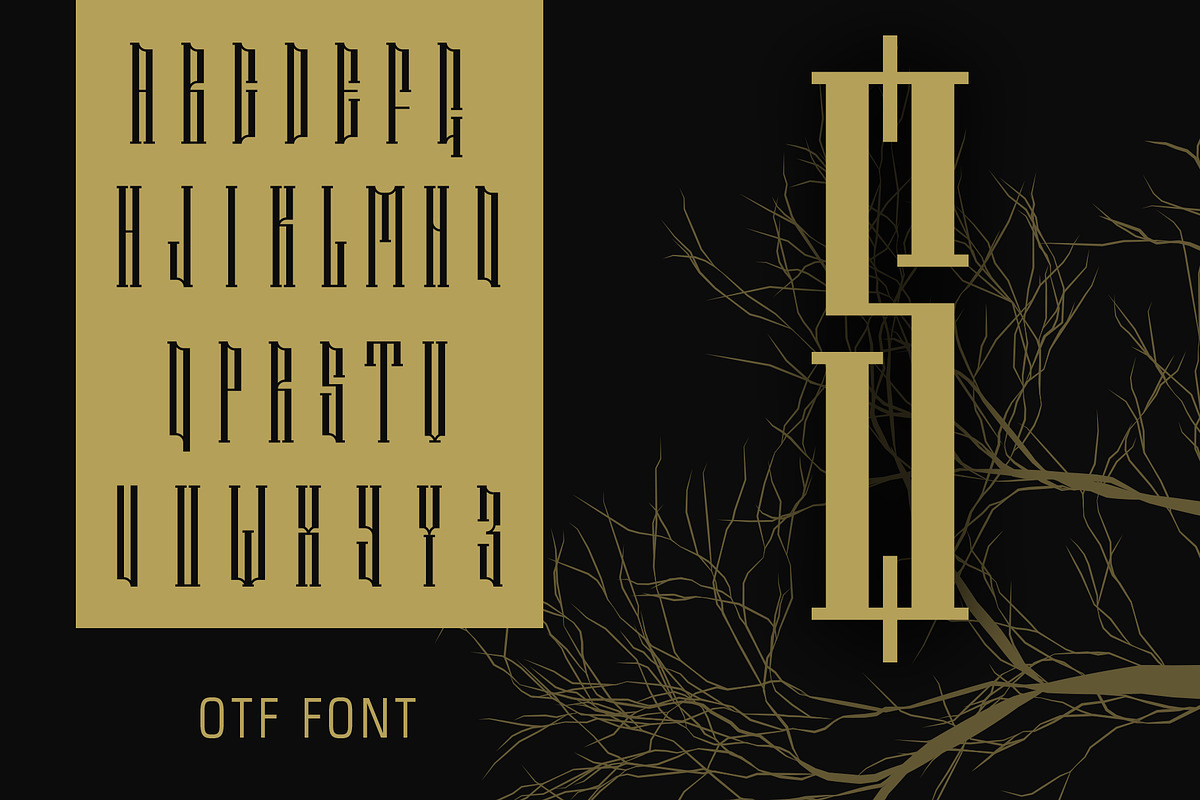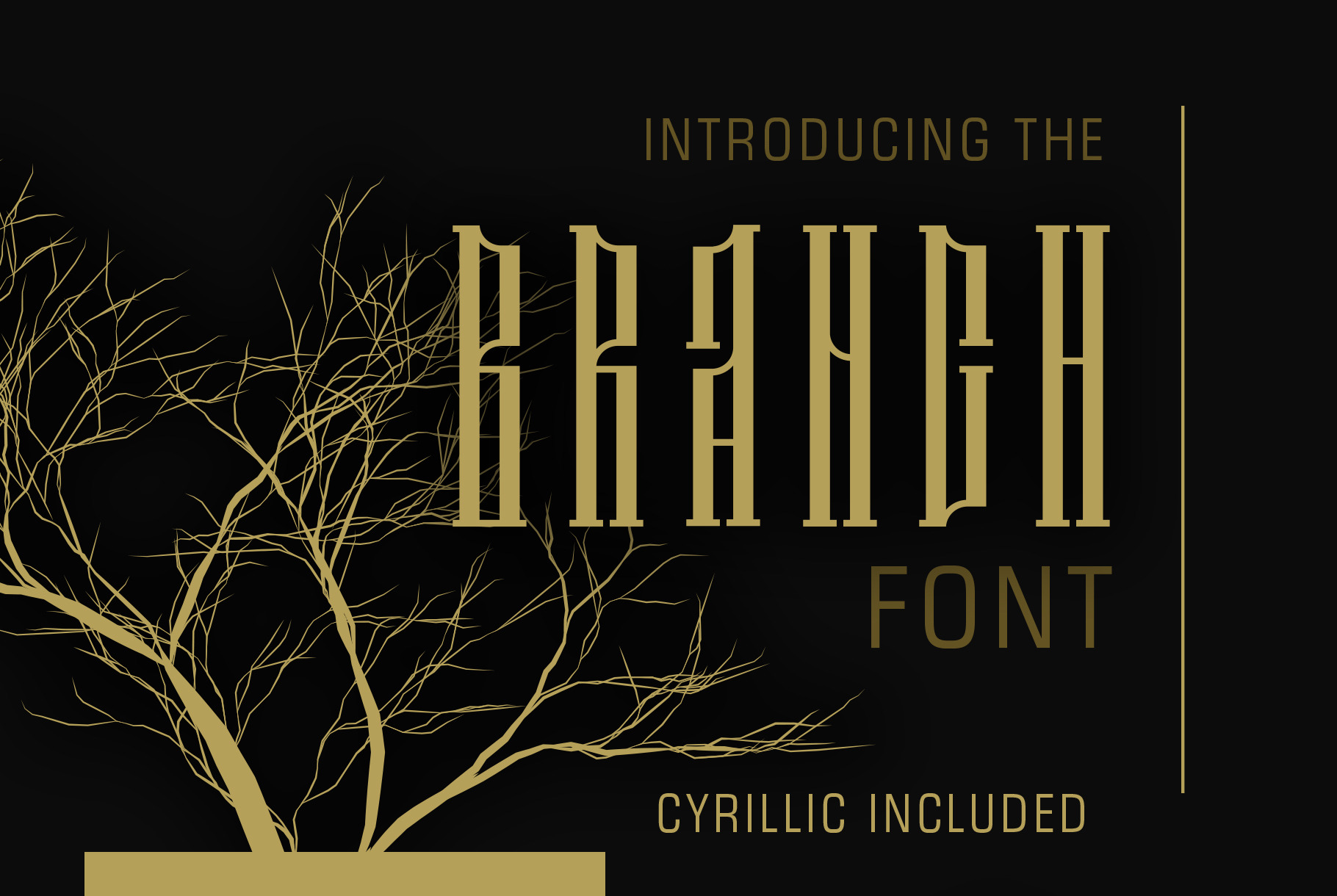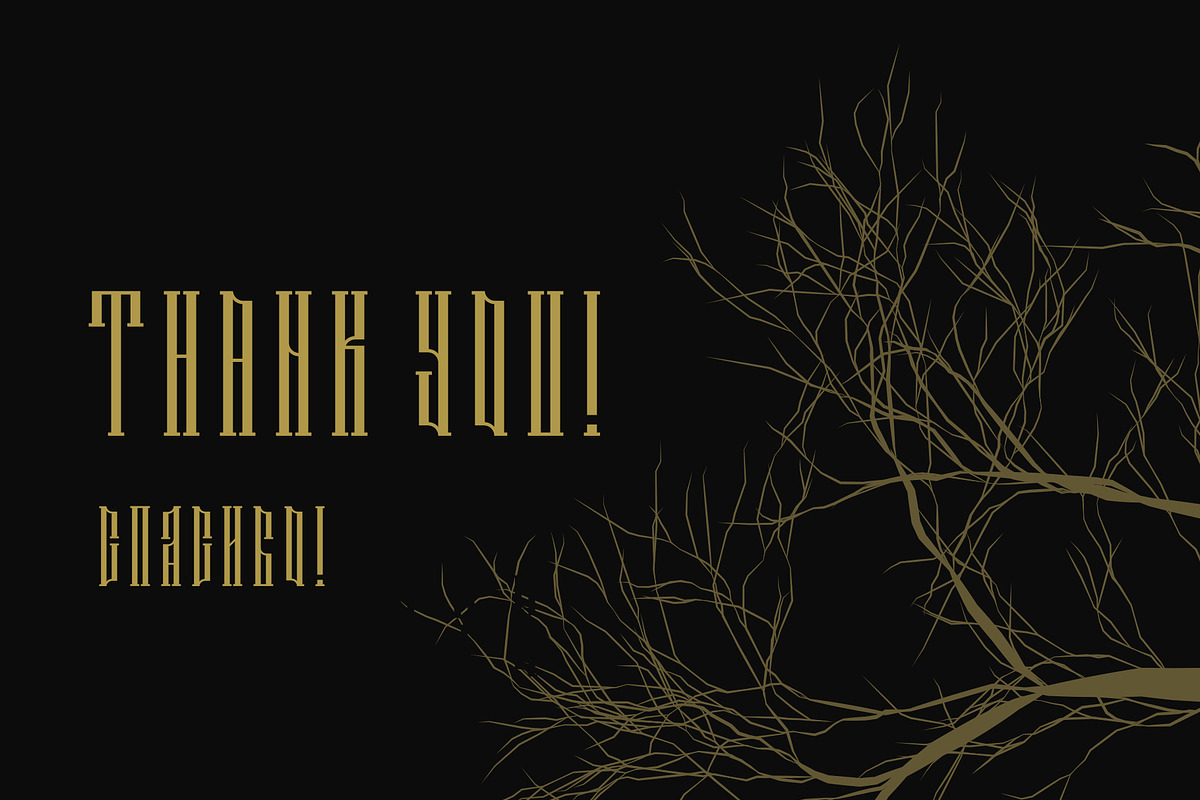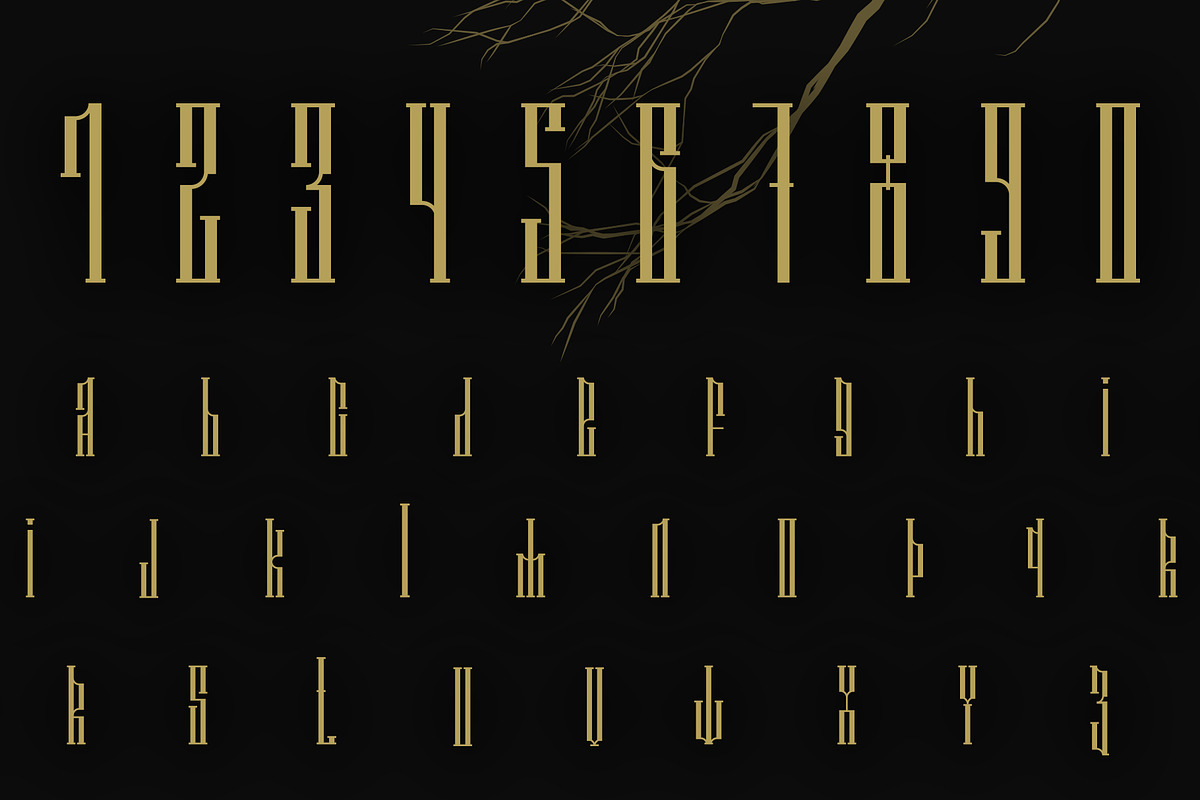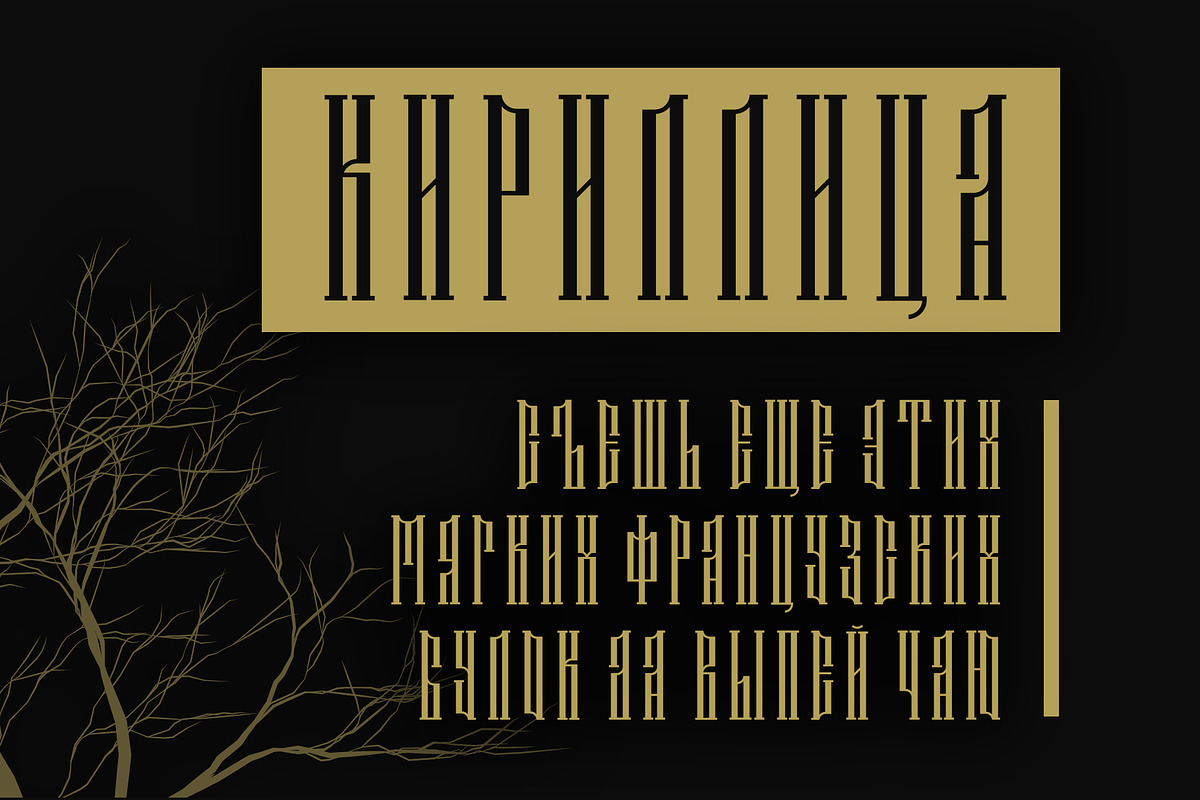
Branch font latin and cyrillic
Branch Latin + Cyrillic
Branch font with Cyrillic support. It is perfect for branding, Slavic motives, russian menu design and many more
Font includes a full set of gorgeous uppercase and lowercase letters, numbers, a large selection of punctuation
Ethnic serif font. Authentic slavic stylized alphabet bold symbols.
Creative minimal latin typeset